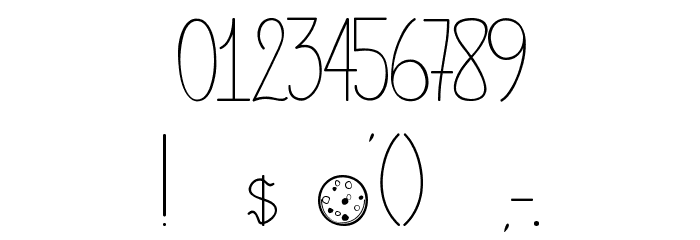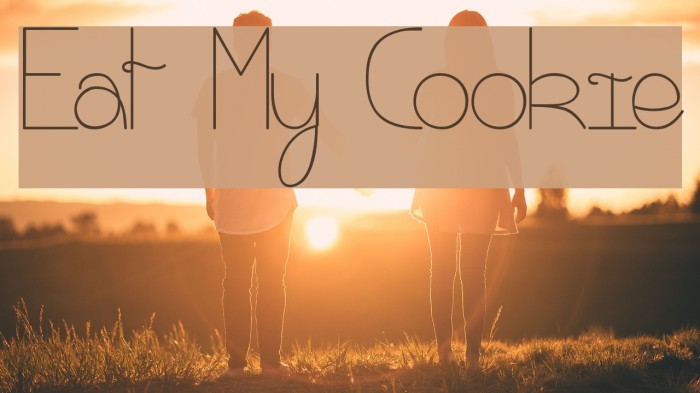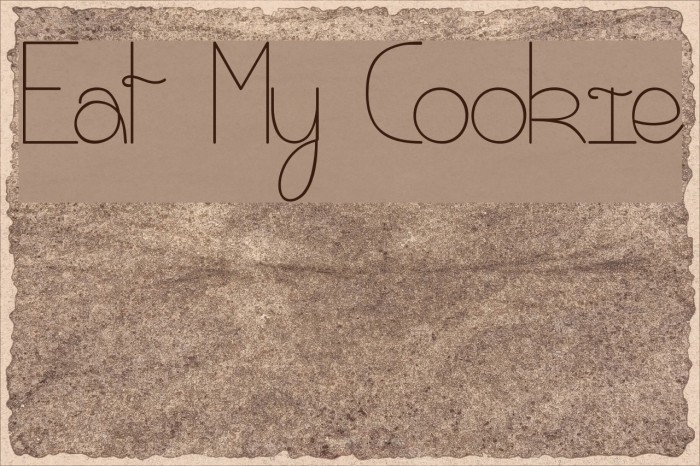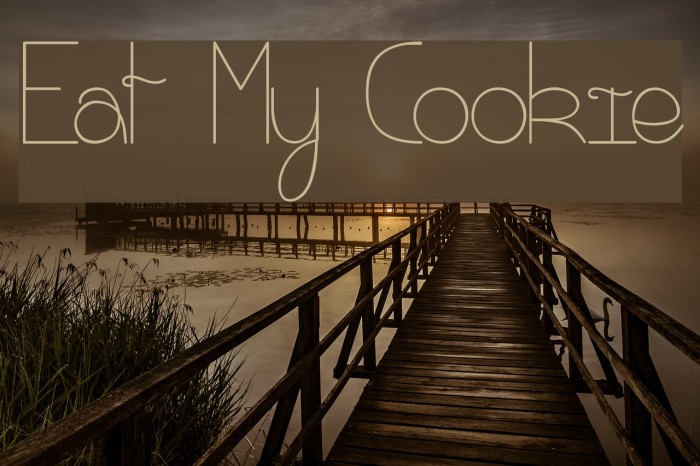
Eat My Cookie Font
This font features a playful and whimsical design, characterized by its thin, elongated strokes and unique character shapes. The uppercase letters exhibit a tall and narrow form, with some letters incorporating unexpected curves and angles, adding to its quirky appeal. The lowercase letters maintain a consistent style, with certain characters like 'g' and 'y' having distinctive loops and tails. Numbers are similarly styled, with a light and airy appearance. Special characters, including punctuation marks, are designed to match the overall aesthetic, with a cookie symbol adding a fun touch. This font's light weight and distinctive style make it ideal for creative and informal projects.
A playful, thin-stroked font with whimsical character shapes.
- Proposed Projects: Ideal for children's books, playful branding, greeting cards, and creative posters.
- Weight: Light
- Overall Style: Playful, Whimsical
- Use Case: Headlines, Logos, Creative Projects